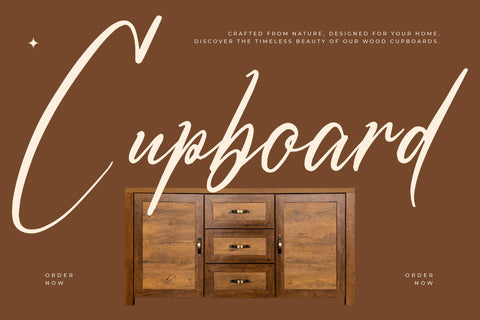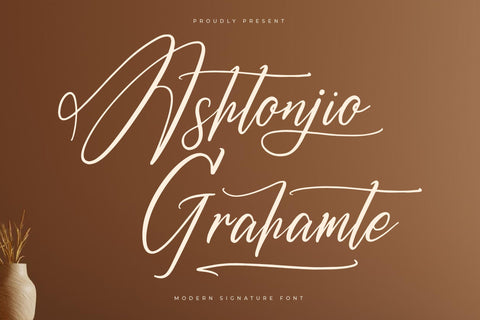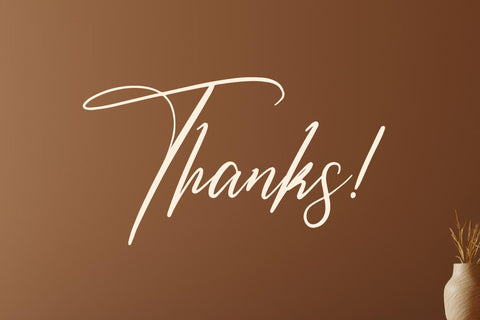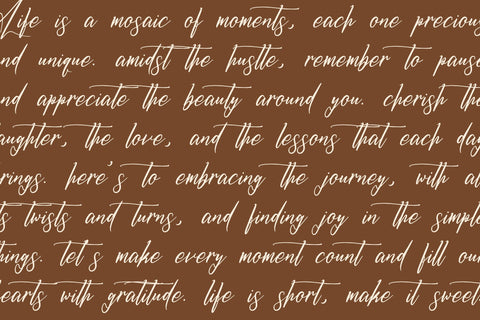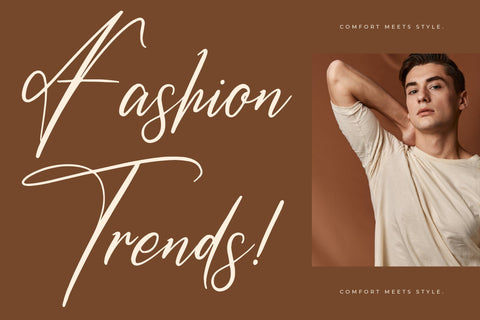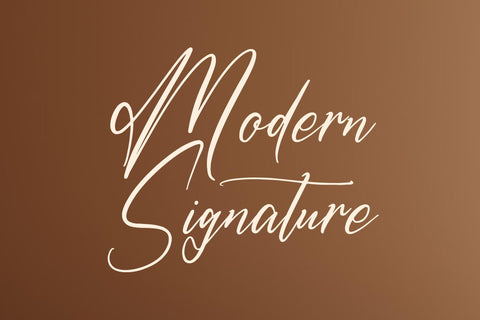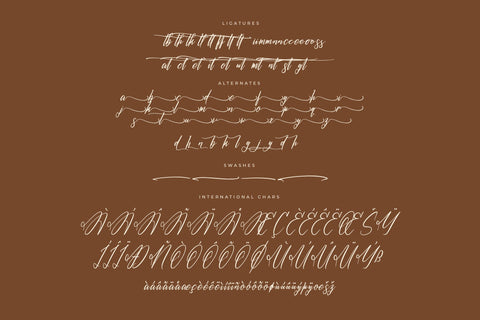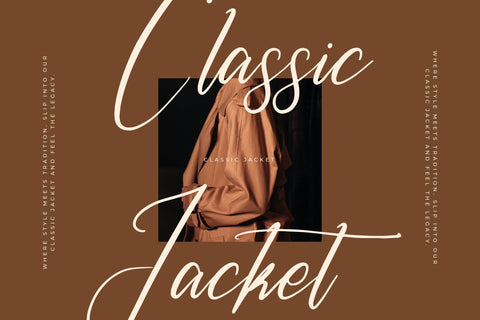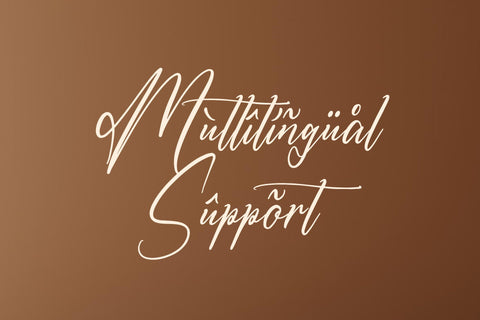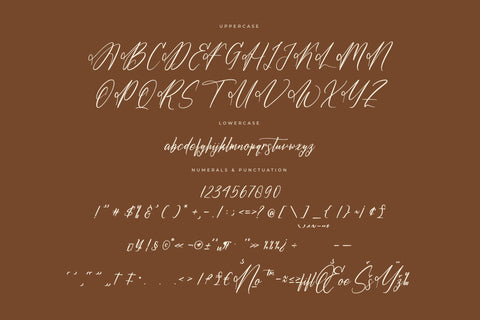
Ashtonjio Grahamte - Modern Signature Font
Ashtonjio Grahamte - Modern Signature Font , from Letterena, is a Luxury Script font, suitable for any projects such as: logos, branding projects, homeware designs, product packaging, mugs, quotes, posters, shopping bags, t-shirts, book covers, name card, invitation cards, greeting cards, label, photography, watermark, special events, and all your other luxury and beautiful projects that need a Luxury serif taste.